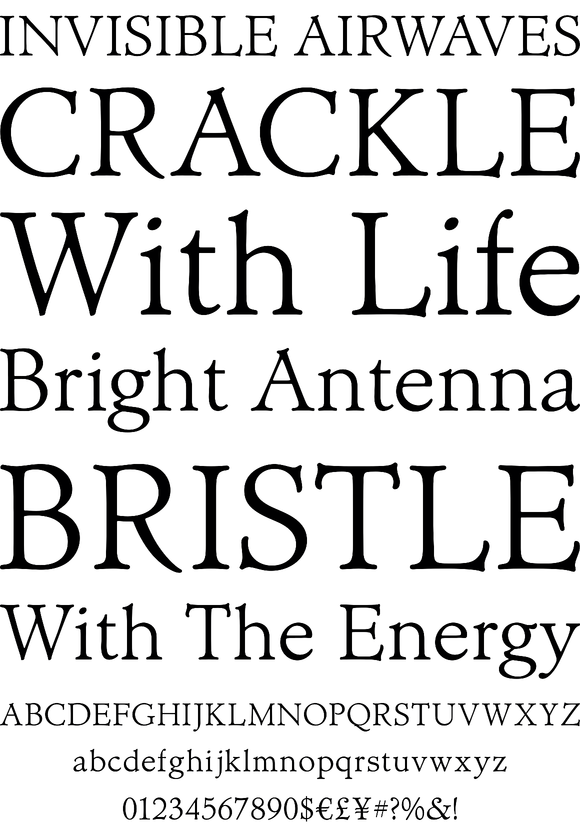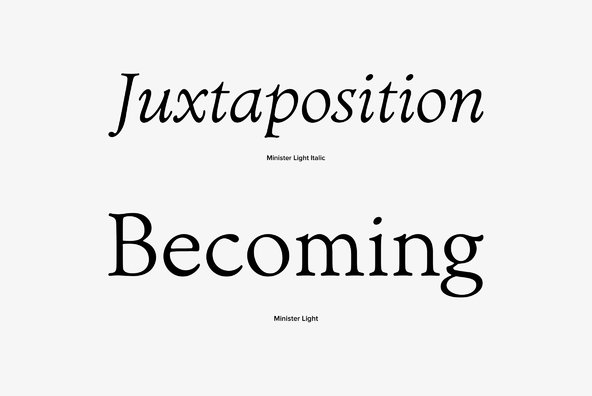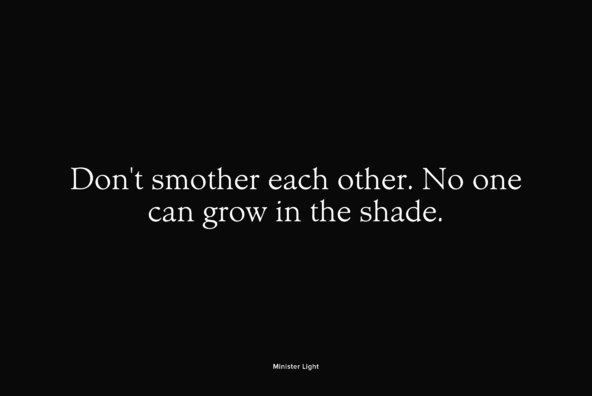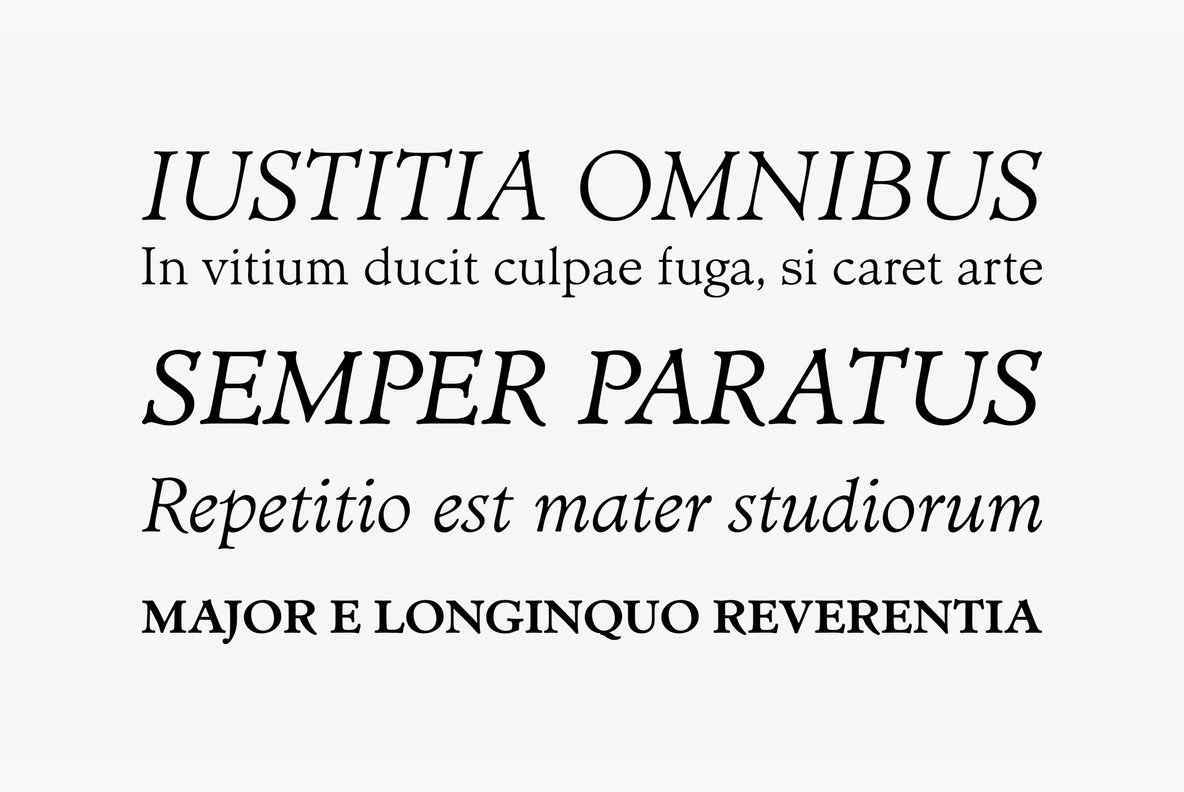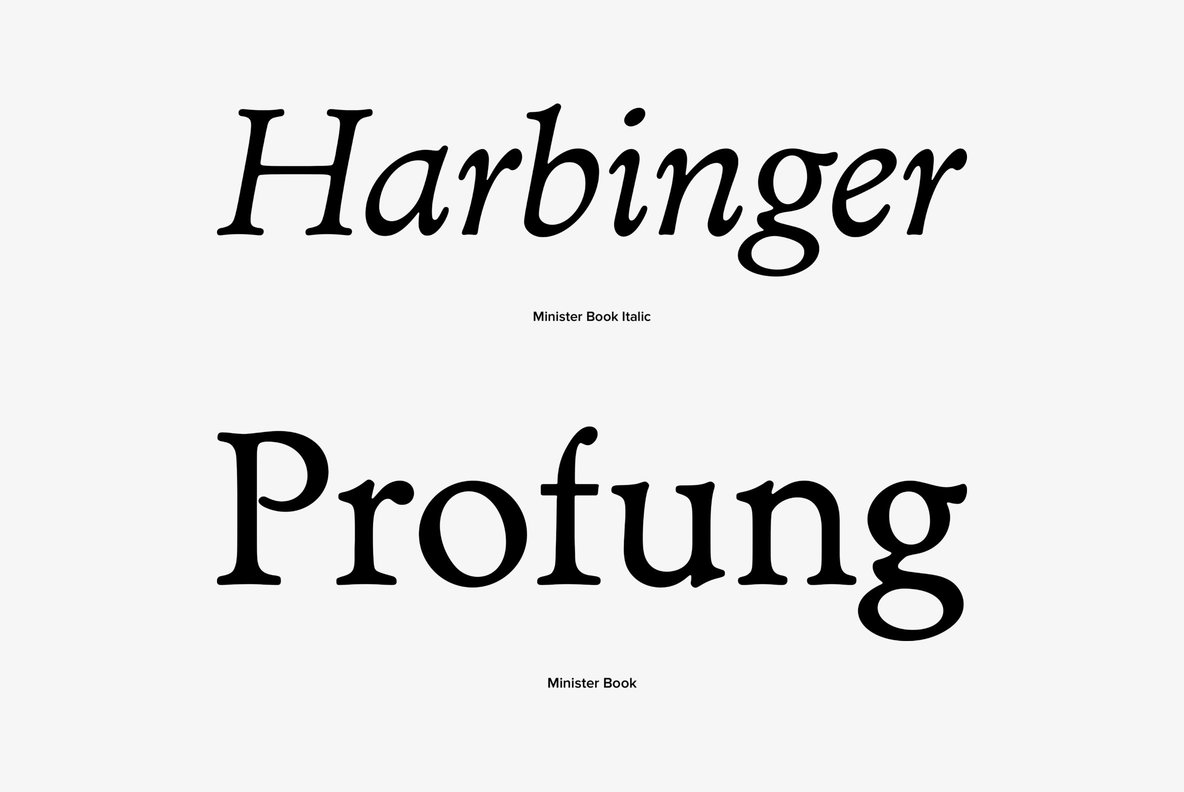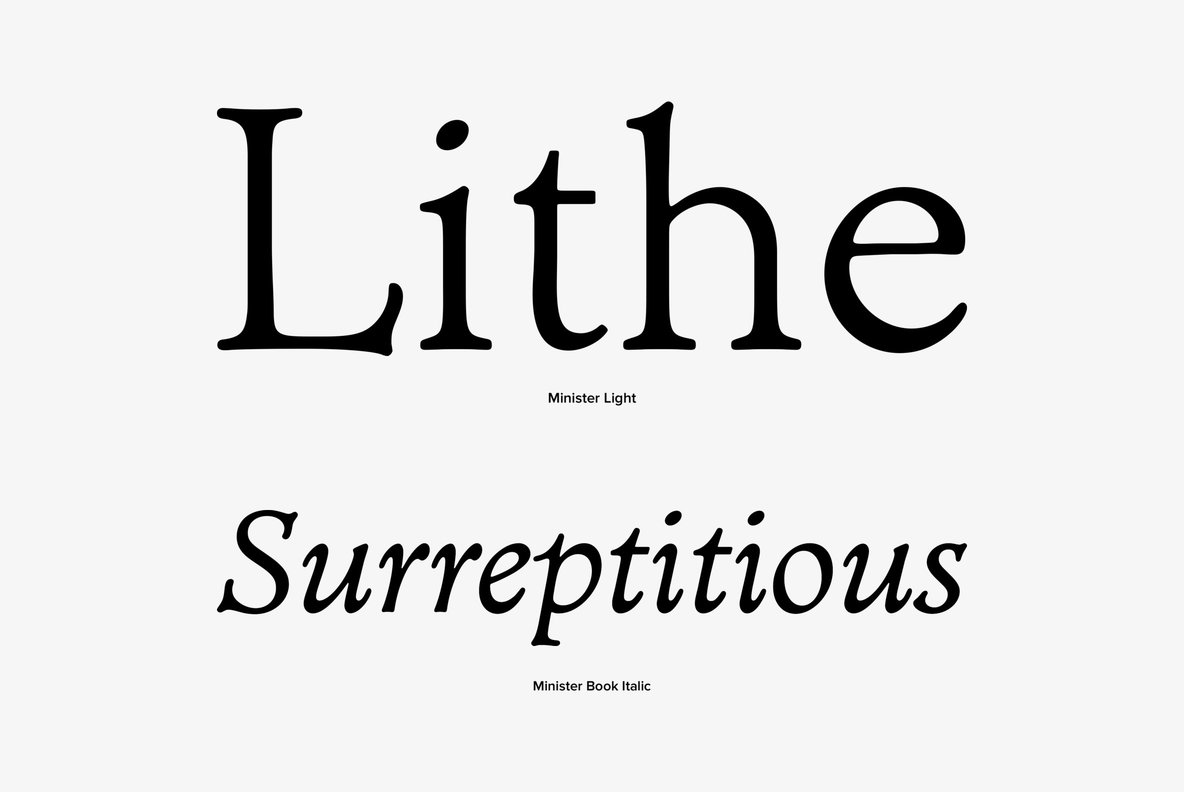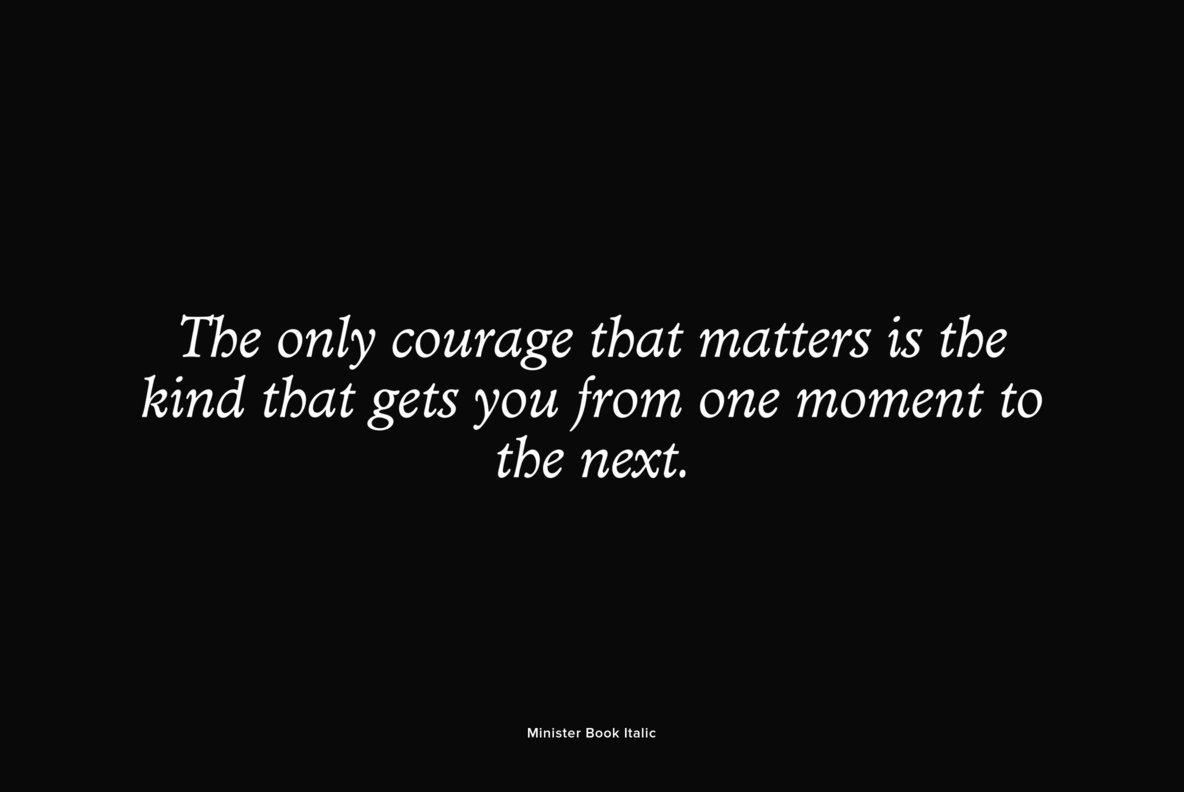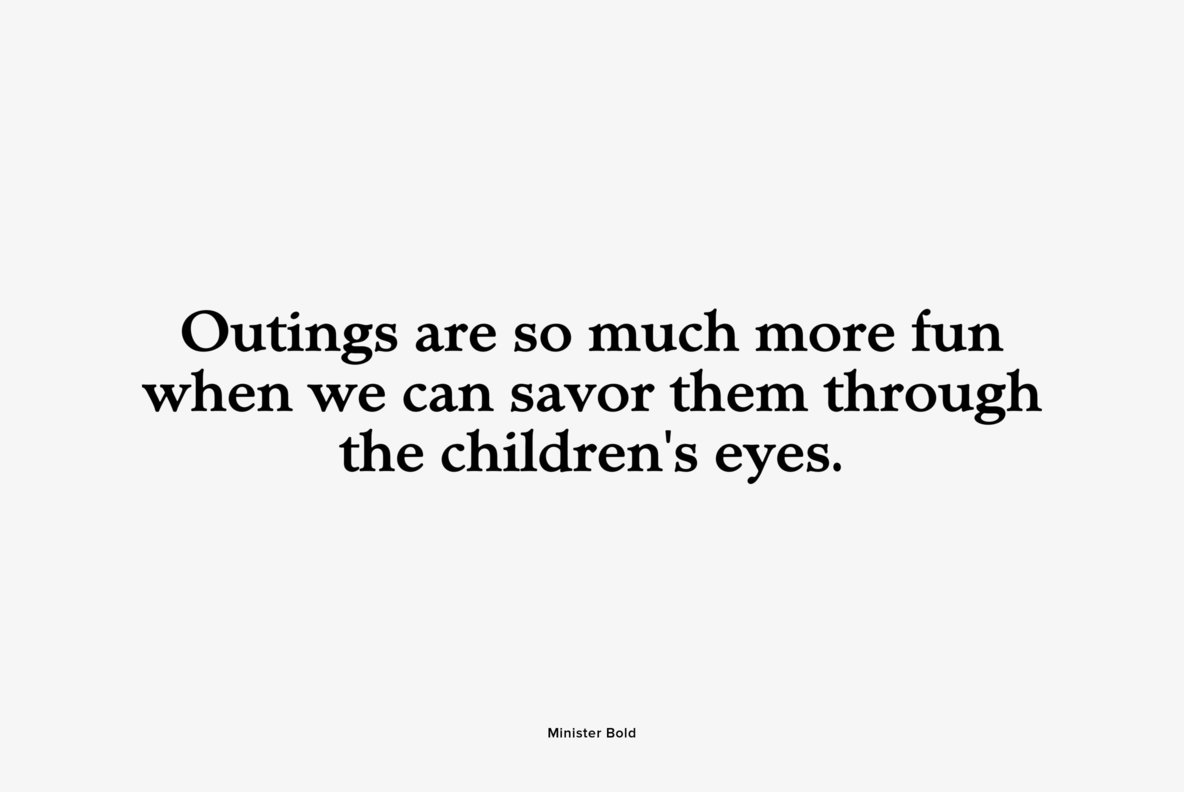
Minister
Designed by C. Fahrenwaldt in 1929 (Linotype), Minister is a serif font release by URW. Contains language support for West, East, Turkish, Baltic, and Romanian.